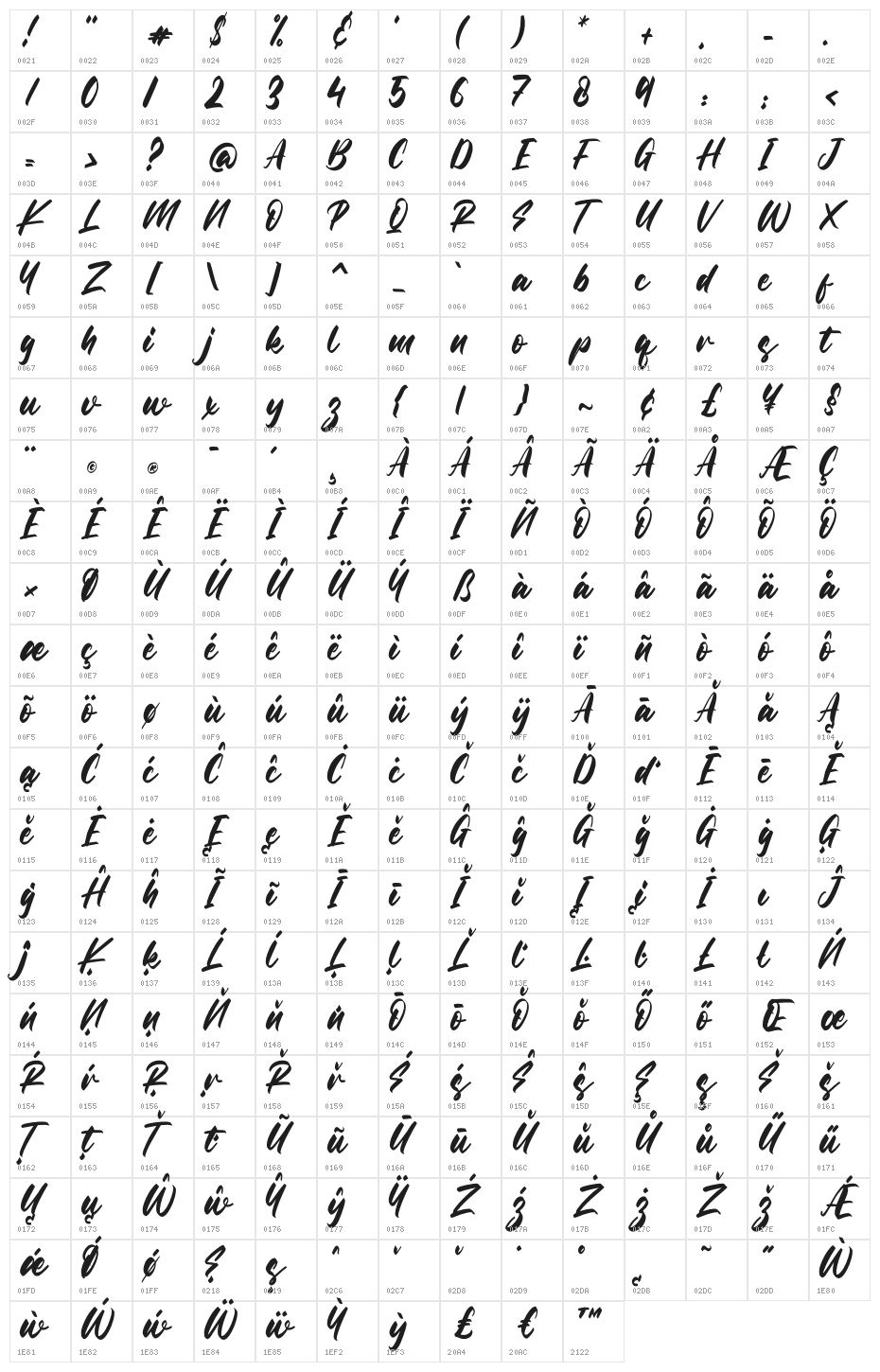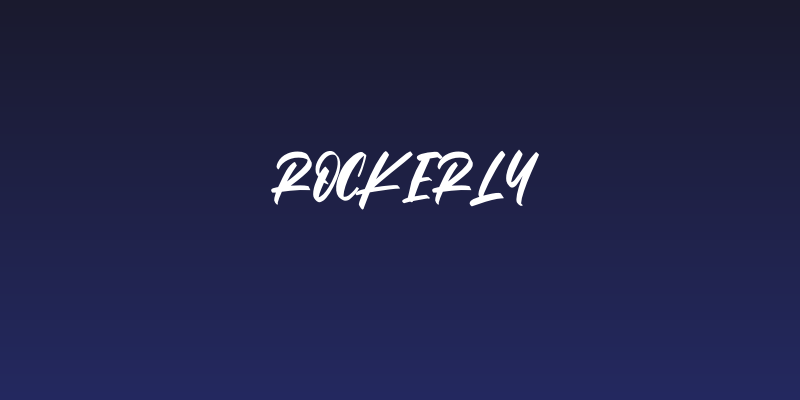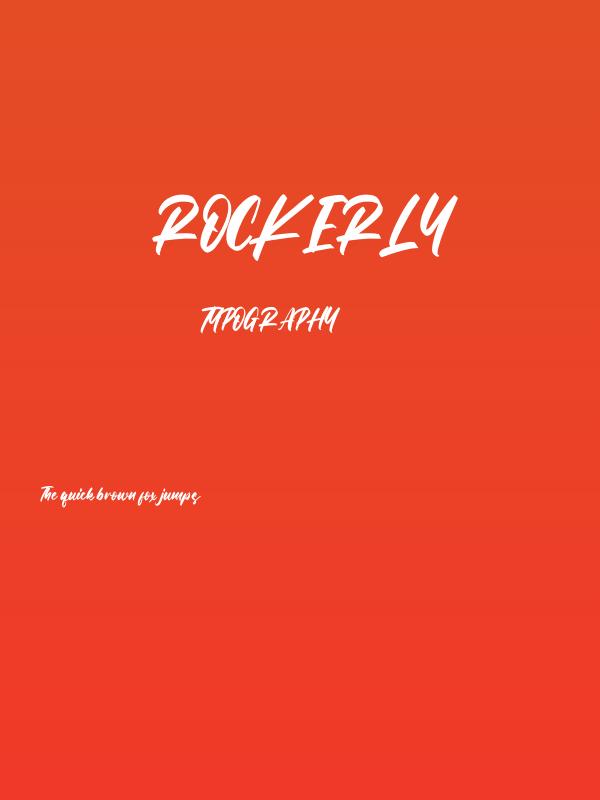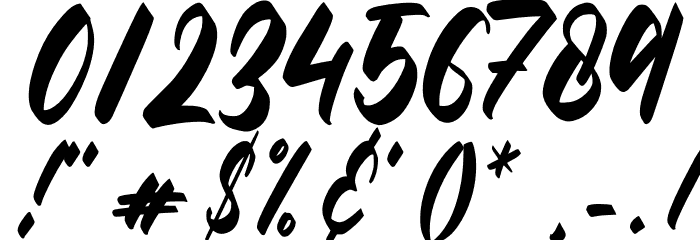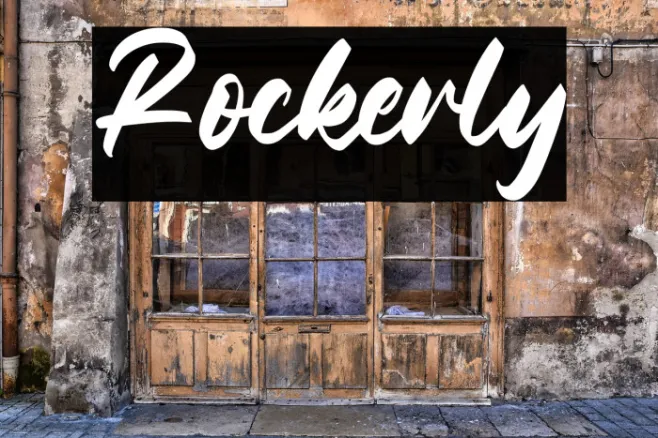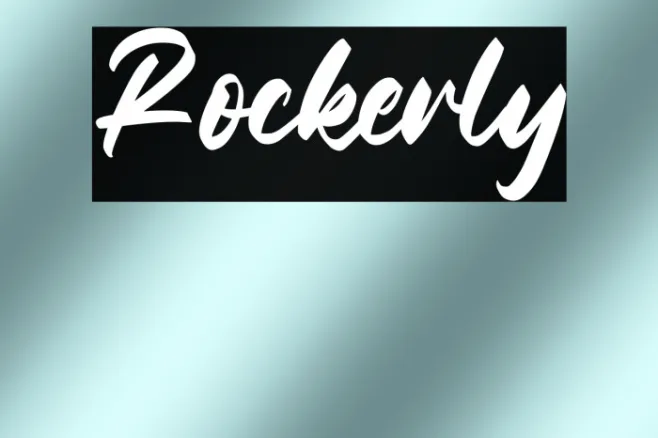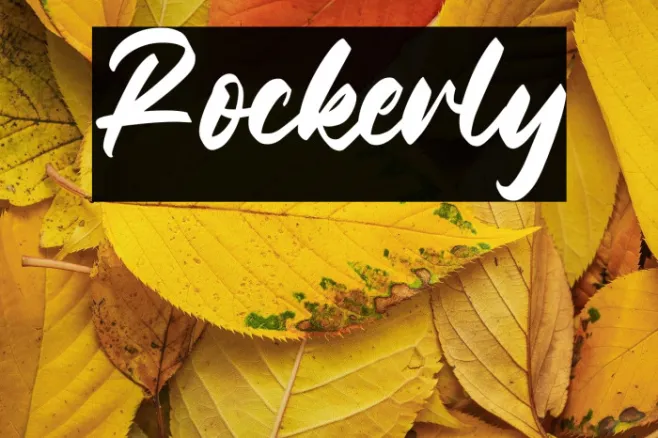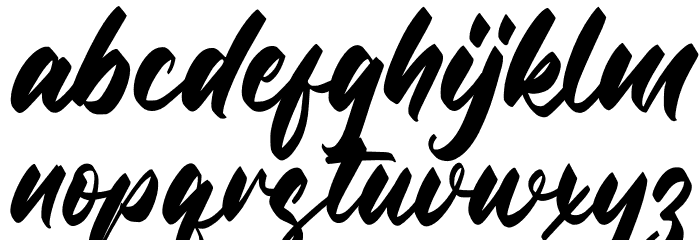
Rockerly Font
Rockerly Description
This font exudes a bold and energetic style, characterized by its dynamic, brush-like strokes that convey a sense of movement and flair. The uppercase letters are tall and slightly slanted, giving an impression of speed and urgency, while the lowercase letters maintain a consistent flow with smooth curves and sharp edges. The numbers are equally expressive, with a playful yet assertive appearance. Special characters are creatively designed, adding to the overall artistic feel. The font's thick strokes and high contrast make it highly legible and impactful, suitable for grabbing attention.
| Proposed Projects | Ideal for projects needing a vibrant and energetic touch, such as posters, branding, and social media graphics. |